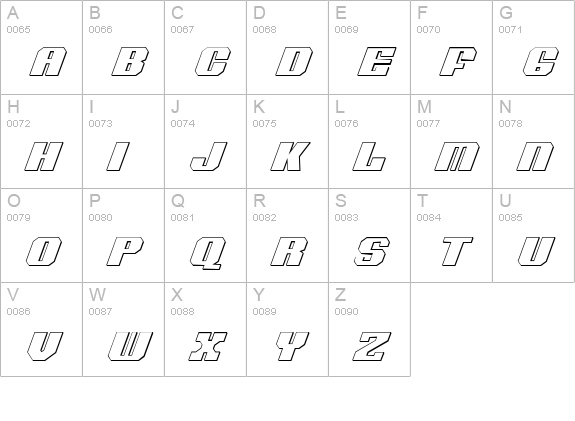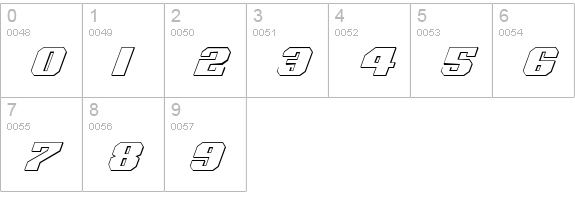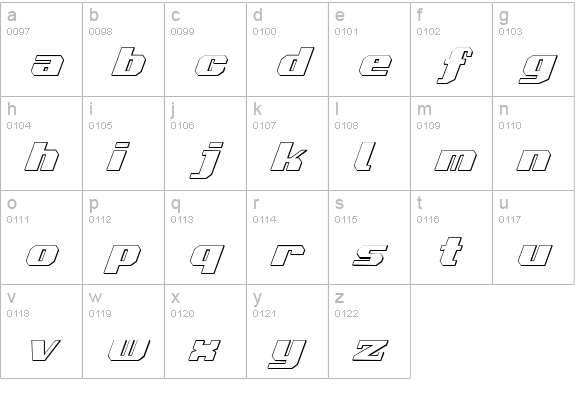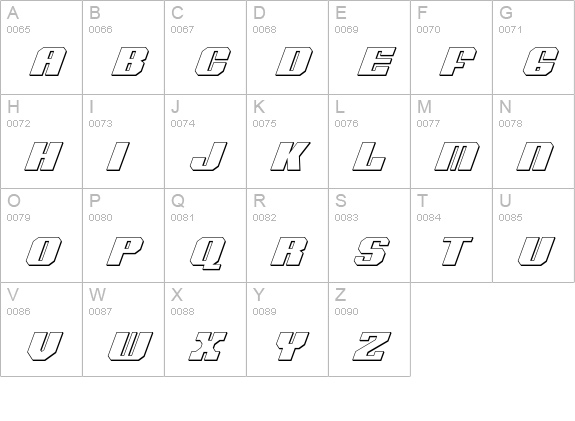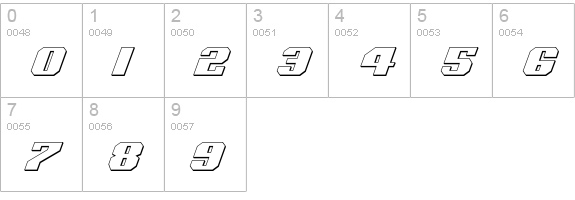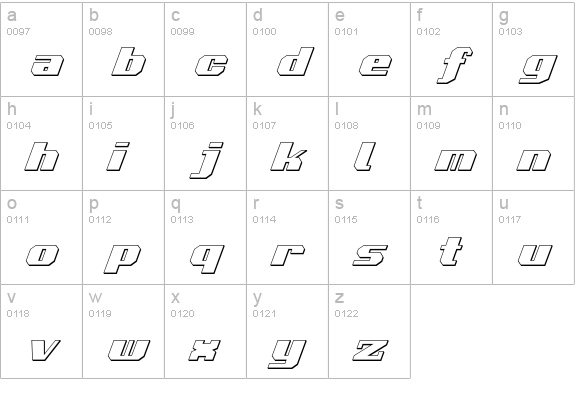
Voortrekker 3D Italic is a distinctive, italic variant in the Voortrekker typeface family \xE2\x80\x94 well suited to design and typography projects.
The Voortrekker 3D Italic font is a unique and eye-catching typeface that adds depth and dimension to any design project. Its bold and slanted design gives it a modern and edgy look, making it perfect for headlines, posters, and other creative projects. The 3D effect of this font adds a touch of sophistication and elegance, making it stand out from the crowd. What's even better is that the Voortrekker 3D Italic font is available for free download at FontsMarket.com. This means you can easily access this stunning font and use it in your projects without any cost. Whether you're a professional designer or just looking to add some flair to your personal projects, the Voortrekker 3D Italic font is a fantastic choice that won't break the bank. Download it today and elevate your designs with this striking and versatile typeface.